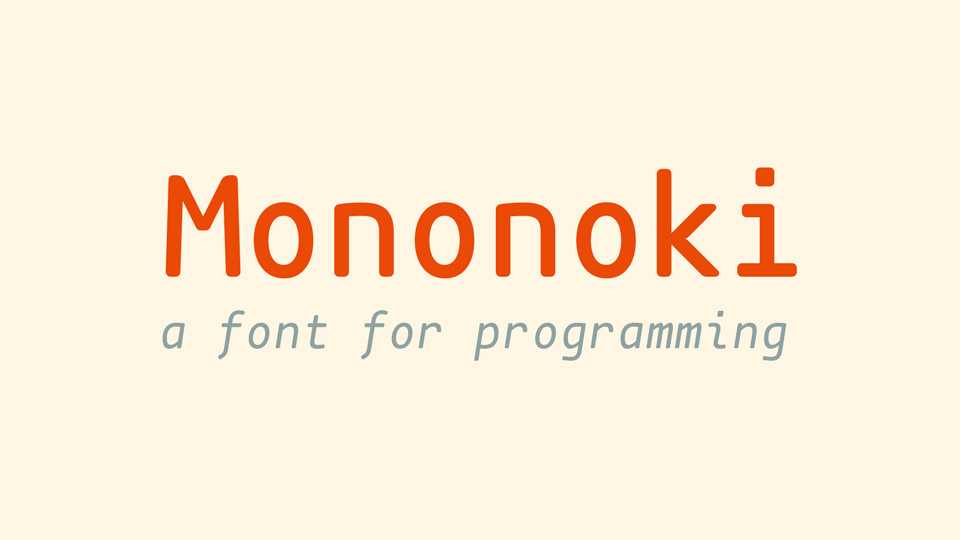
Download Mononoki typeface, a monospaced font family in Regular and Bold weights with matched Italics, created to enhance code formatting. Mononoki is perfect for programming and code review.
Designer: Matthias Tellen